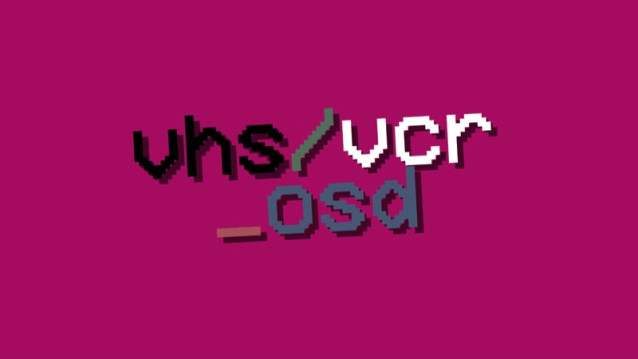
Vhs/vcr Osd Font
Vhs/vcr Osd Font is a stunning display font with a retro bitmap look. This font is perfect for pixel art and 8bit games. It’s also good for any design project which requires that nostalgic vintage feeling.